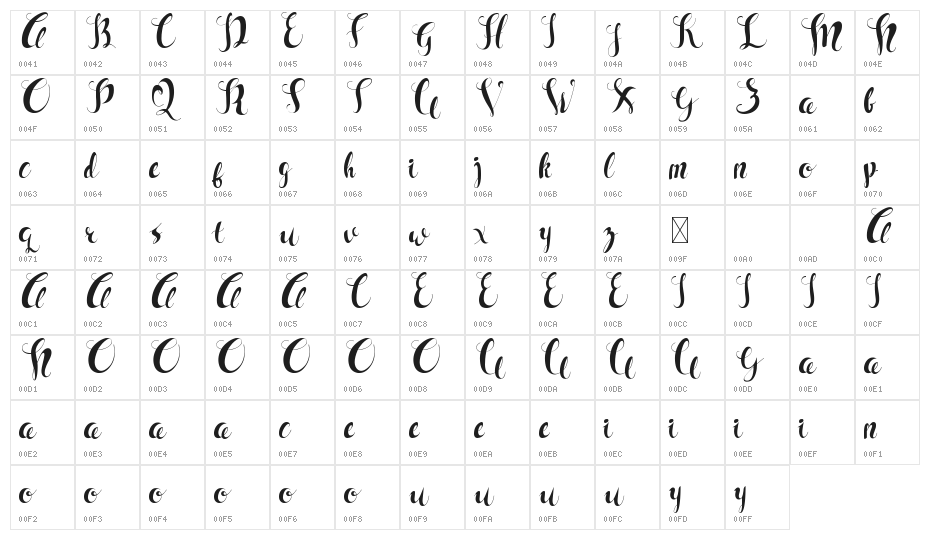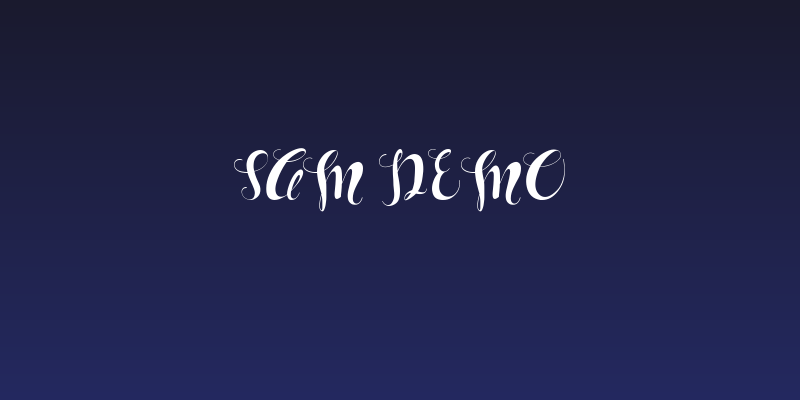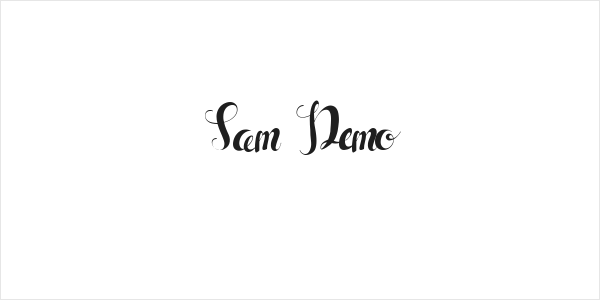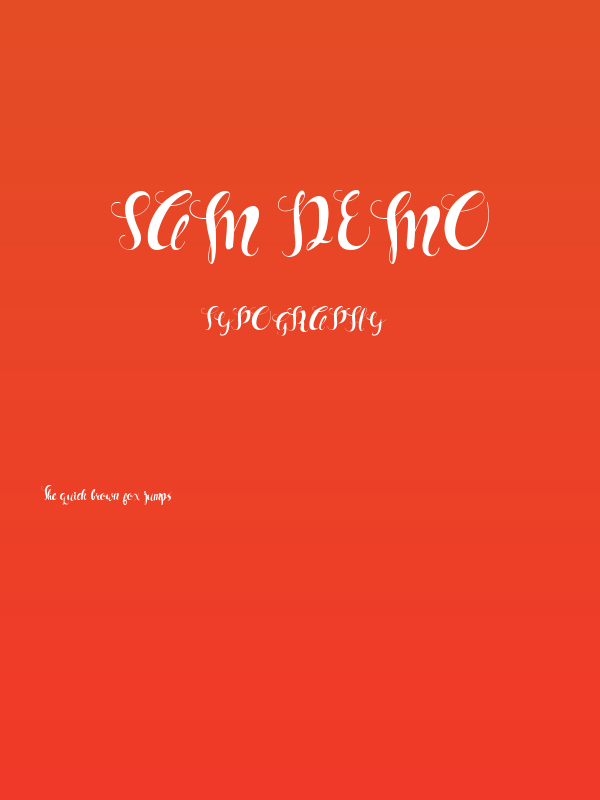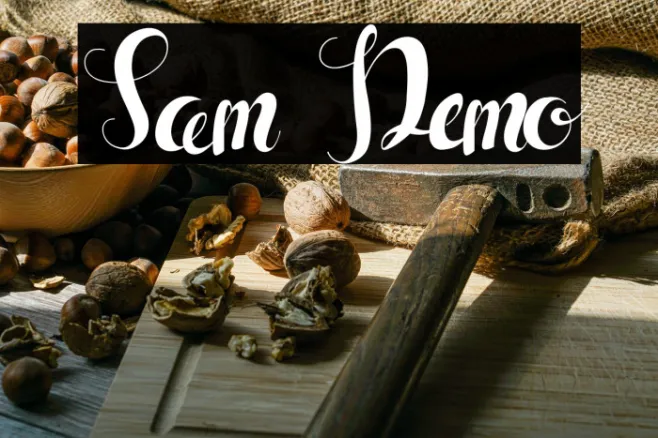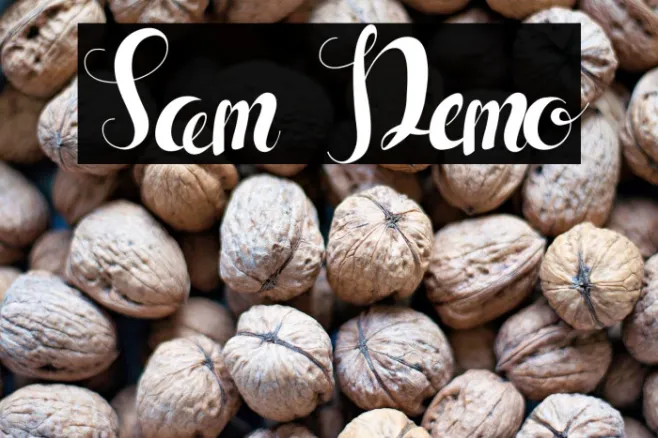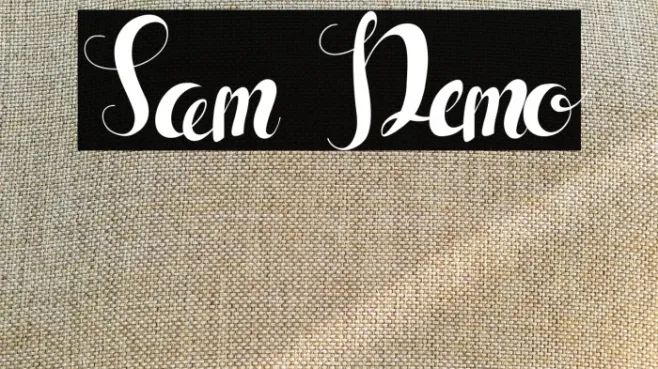
Sam Demo Font
Sam Demo Description
This font features an elegant and flowing script style, characterized by its intricate and decorative swashes. The uppercase letters are particularly ornate, with exaggerated loops and flourishes that give a sense of movement and grace. The lowercase letters maintain a consistent style, with smooth curves and a slightly more restrained use of embellishments. The numbers and special characters are designed to match the overall aesthetic, ensuring a cohesive look across all text elements. This font is ideal for creating a sophisticated and artistic impression.
| Proposed Projects | Ideal for wedding invitations, elegant branding, artistic posters, and decorative headings. |